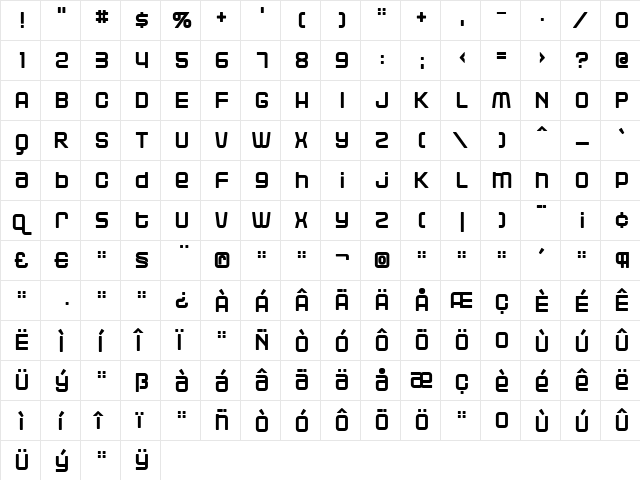
Blackjack Regular
Design Context for Blackjack Typeface
Blackjack takes a measured approach to typography — its balanced proportions and neutral character make it a reliable workhorse for both digital and print work.